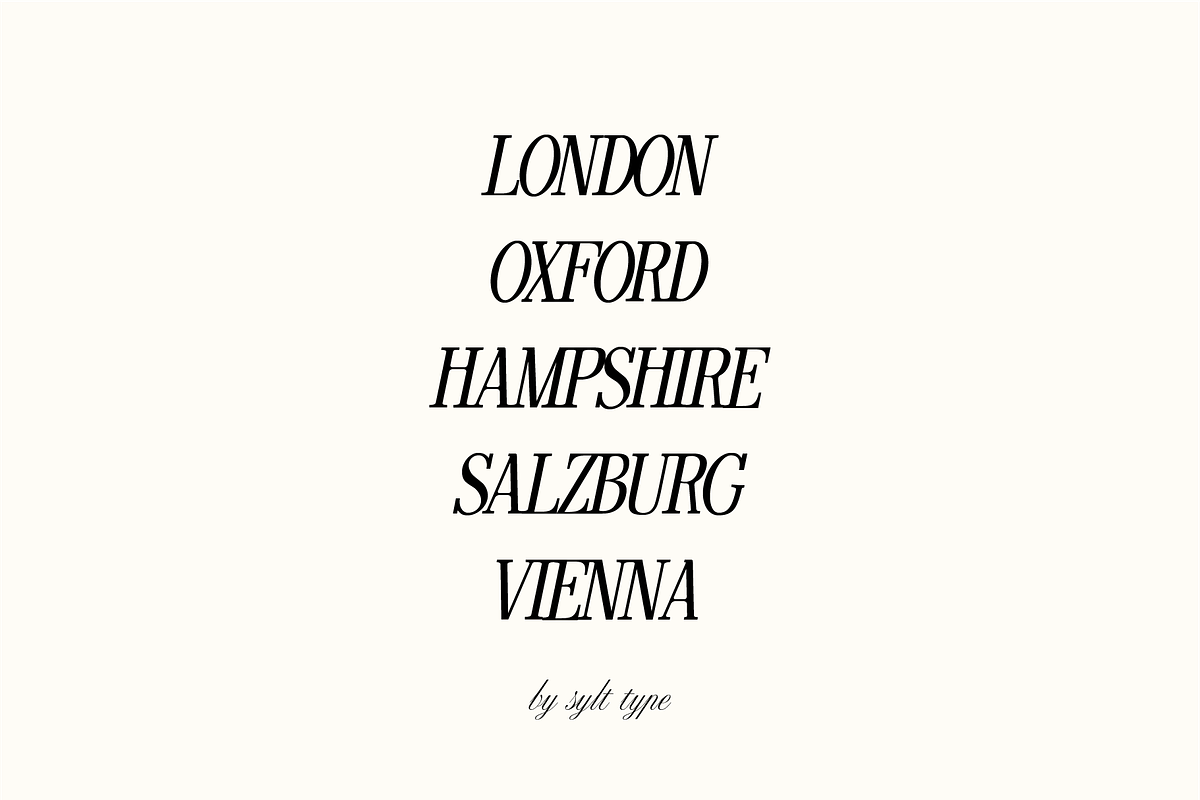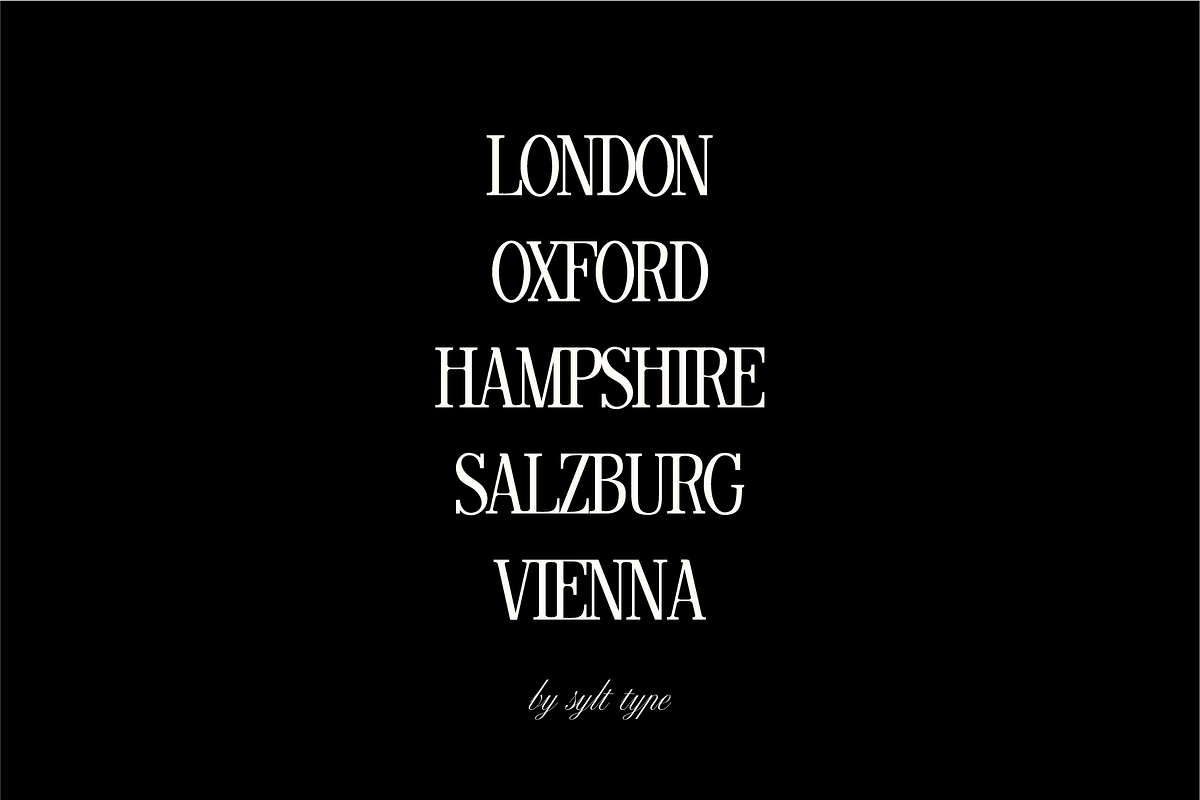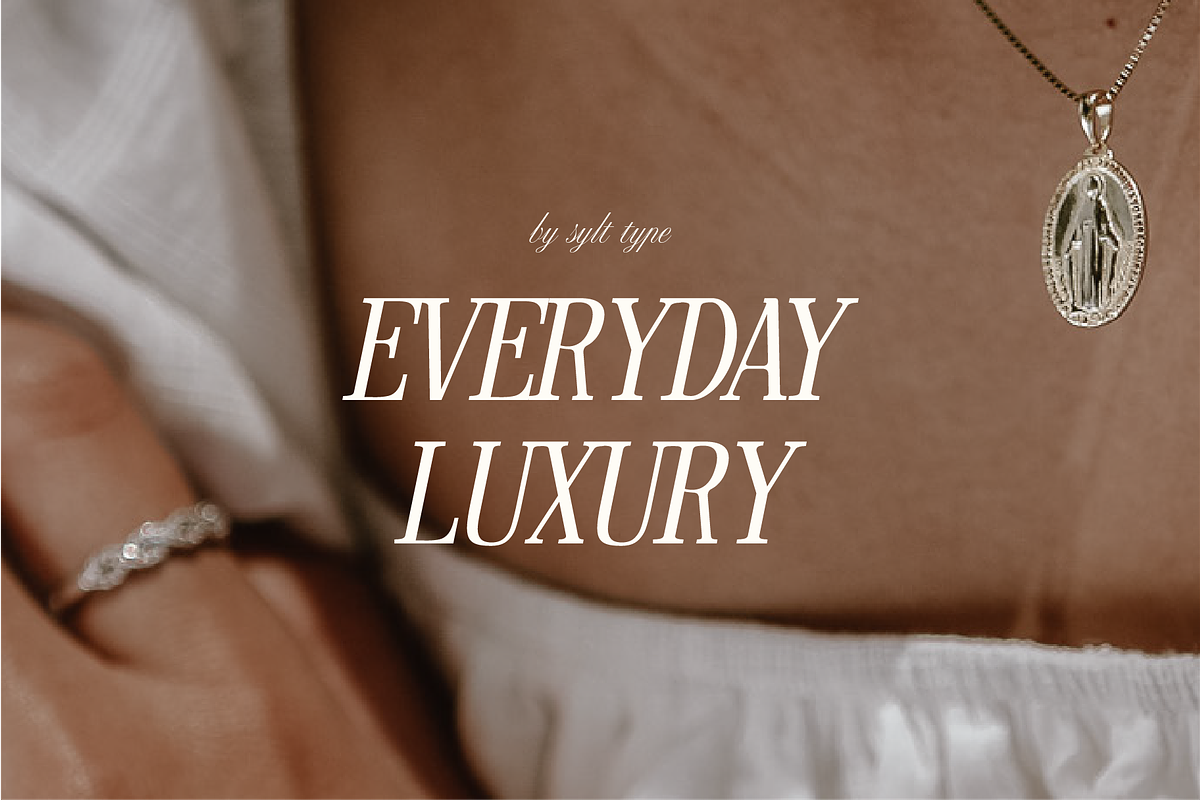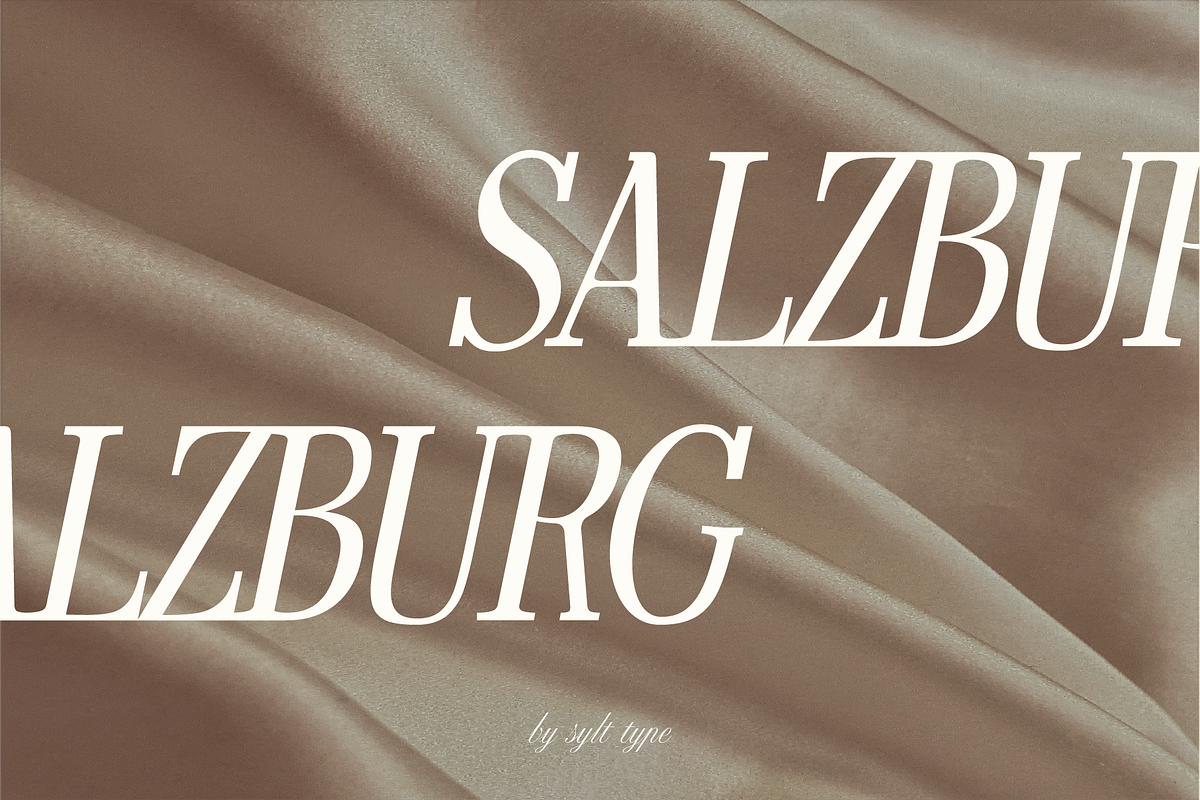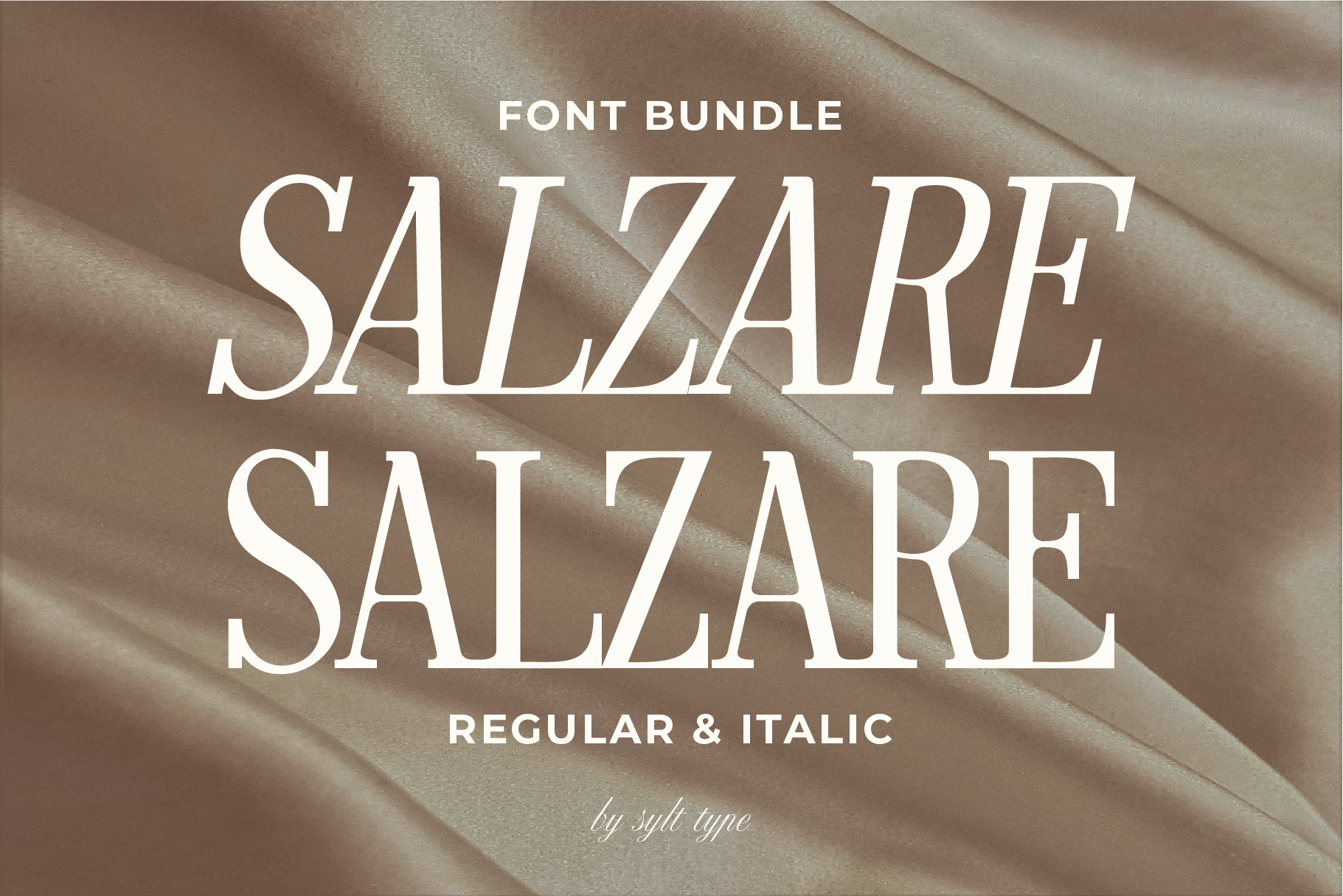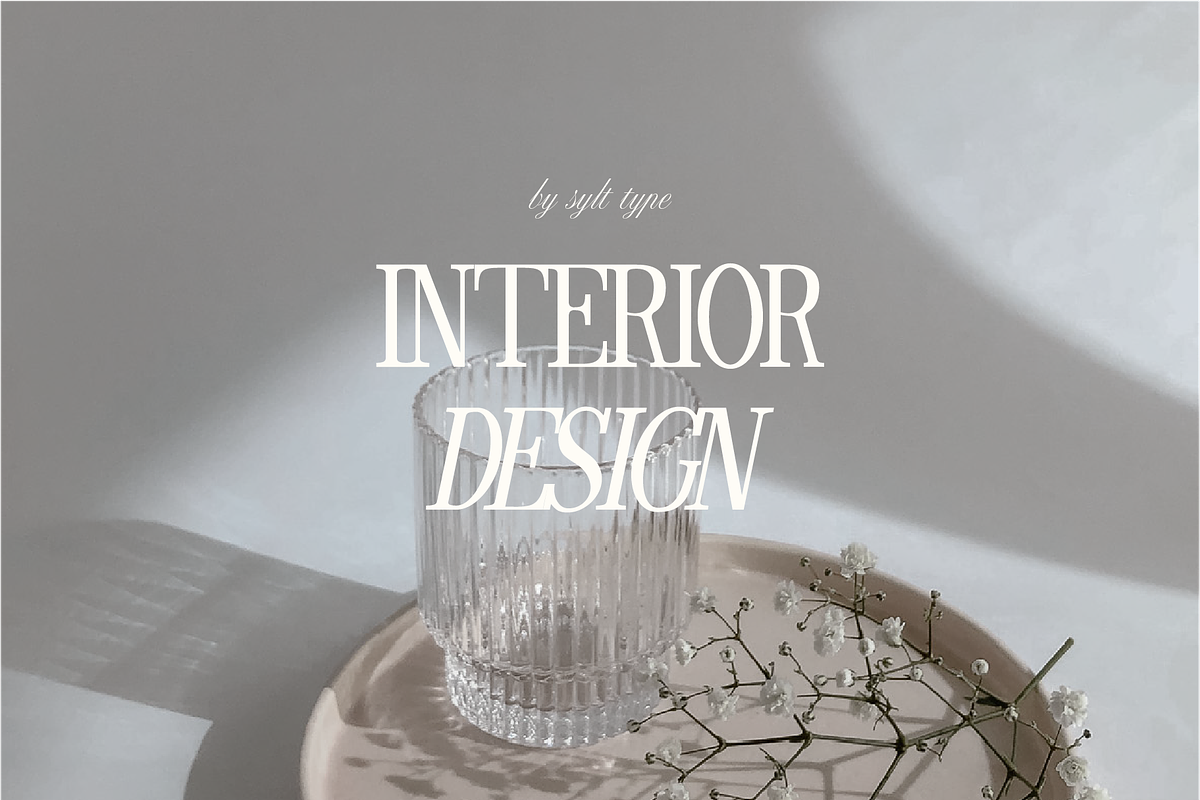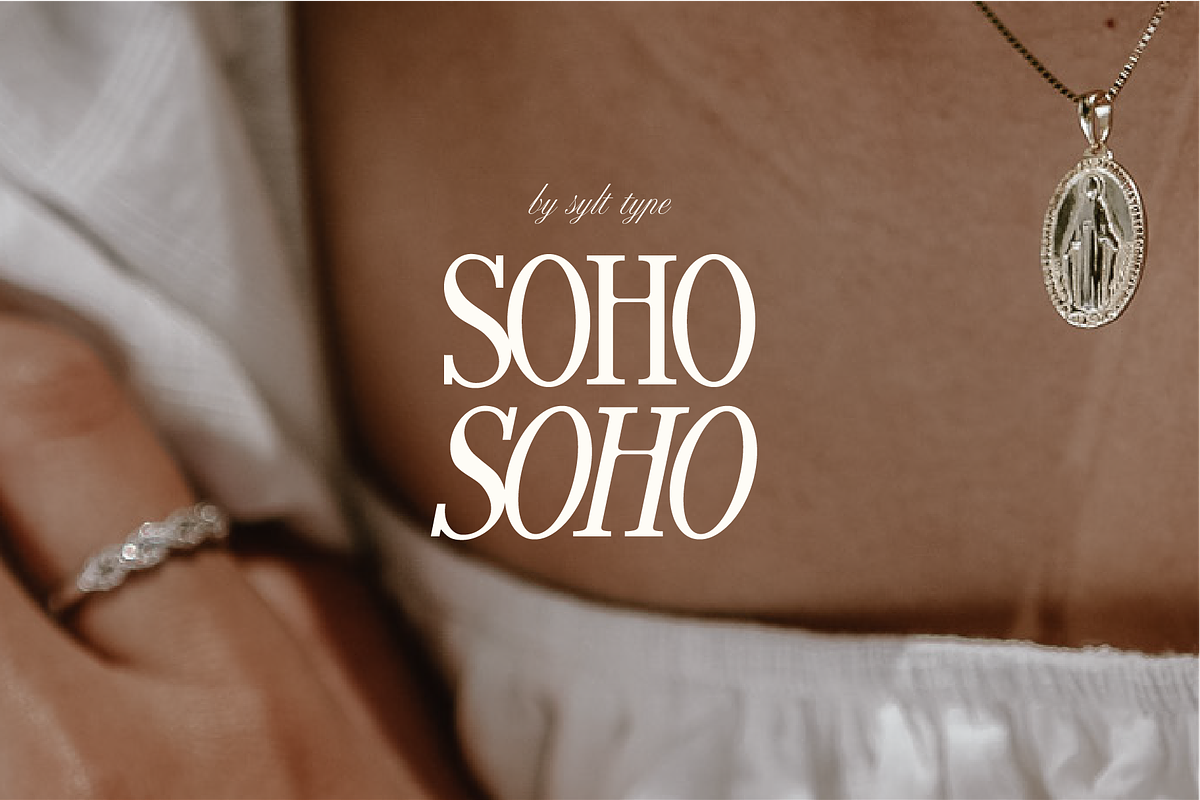
Salzare Display Font Bundle
SALZARE Regular & Italic is an all-caps display font BUNDLE perfect for your logo, websit and product designs.
Capital letters & limited punctuation only (period, comma, apostrophe)